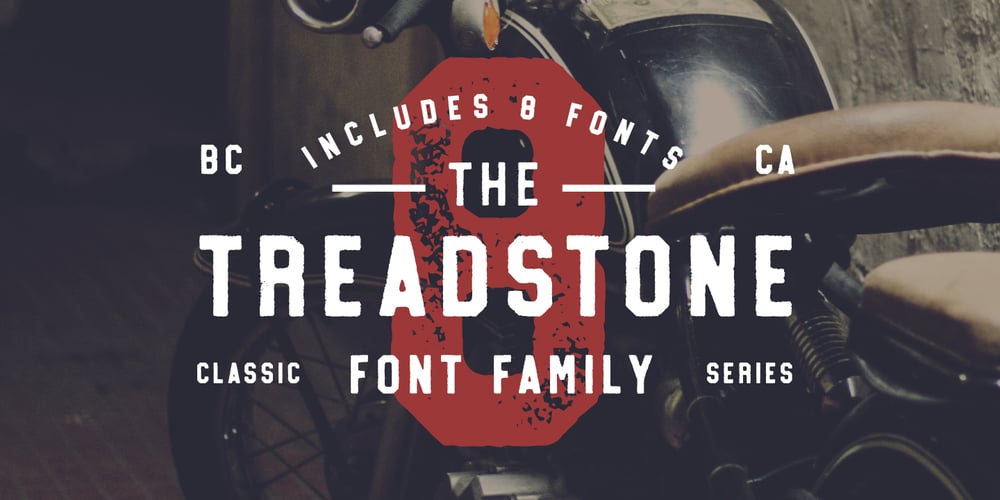
Treadstone Font Family was designed by Greg Nicholls and published by Rook Supply. Treadstone contains 8 styles and family package options. Treadstone gives a modern twist on the athletic, college style font. This font family includes versions with rounded edges, rough edges and grunge effects, each of which has its own character and charm. Treadstone works great for headlines, titles and logos.